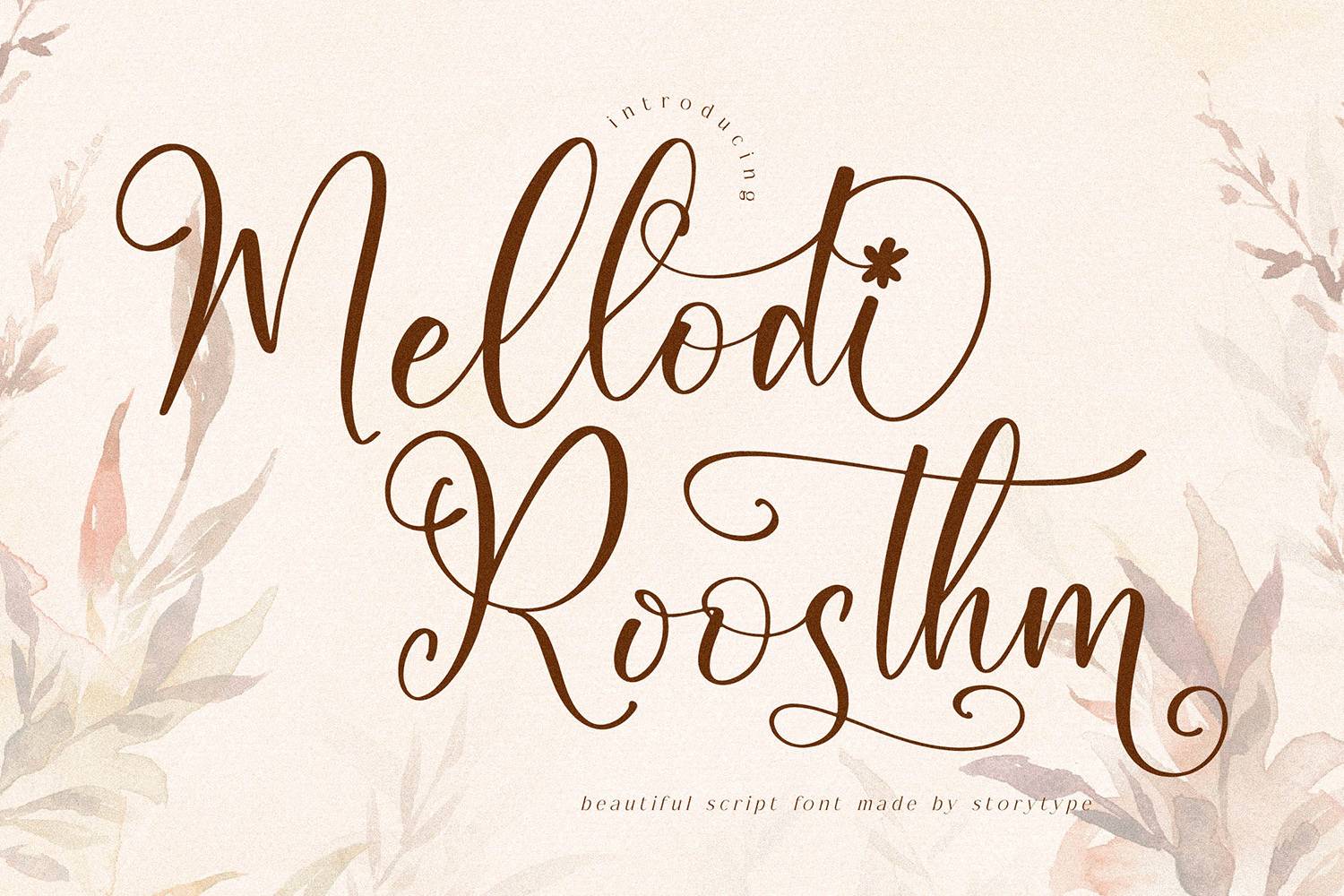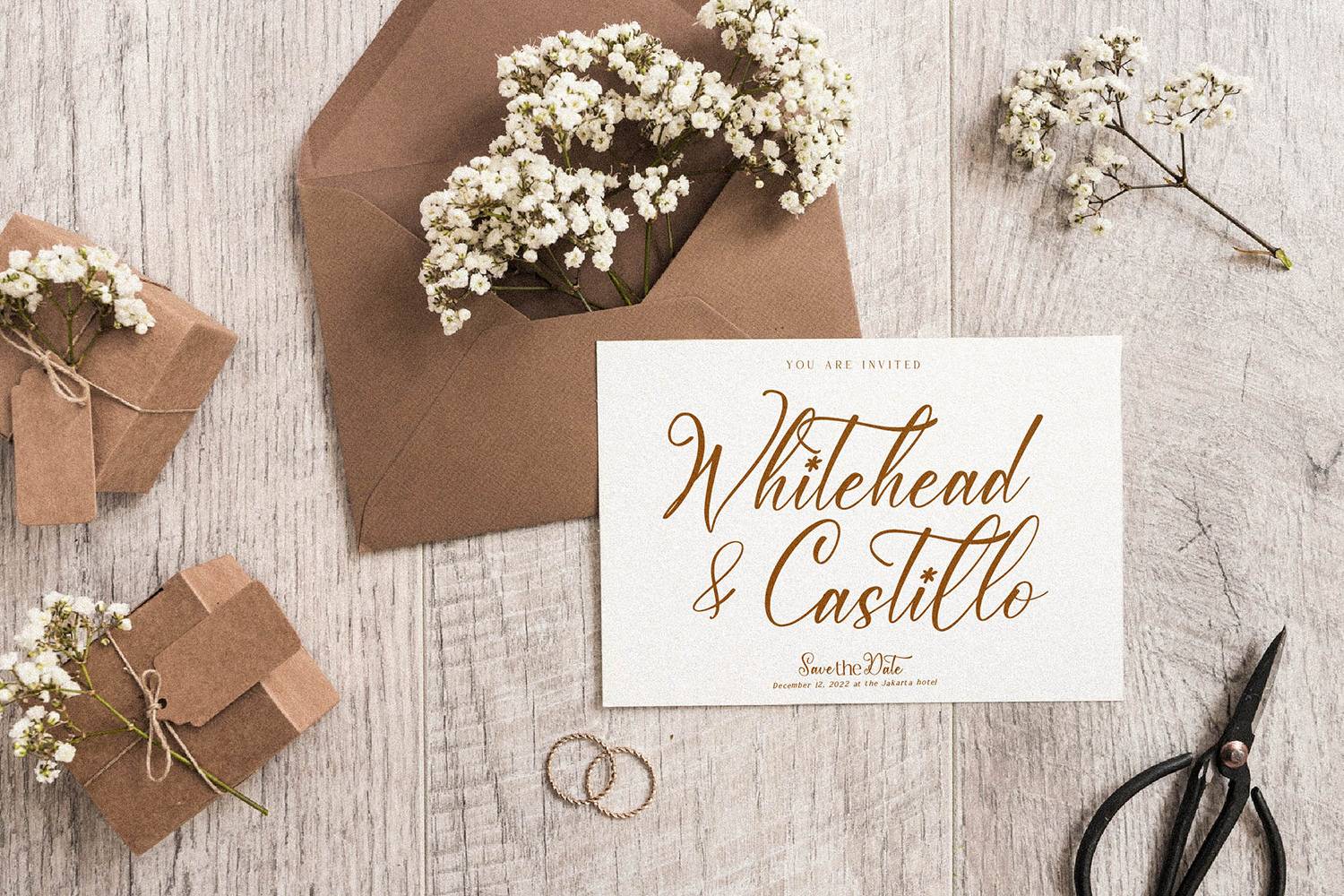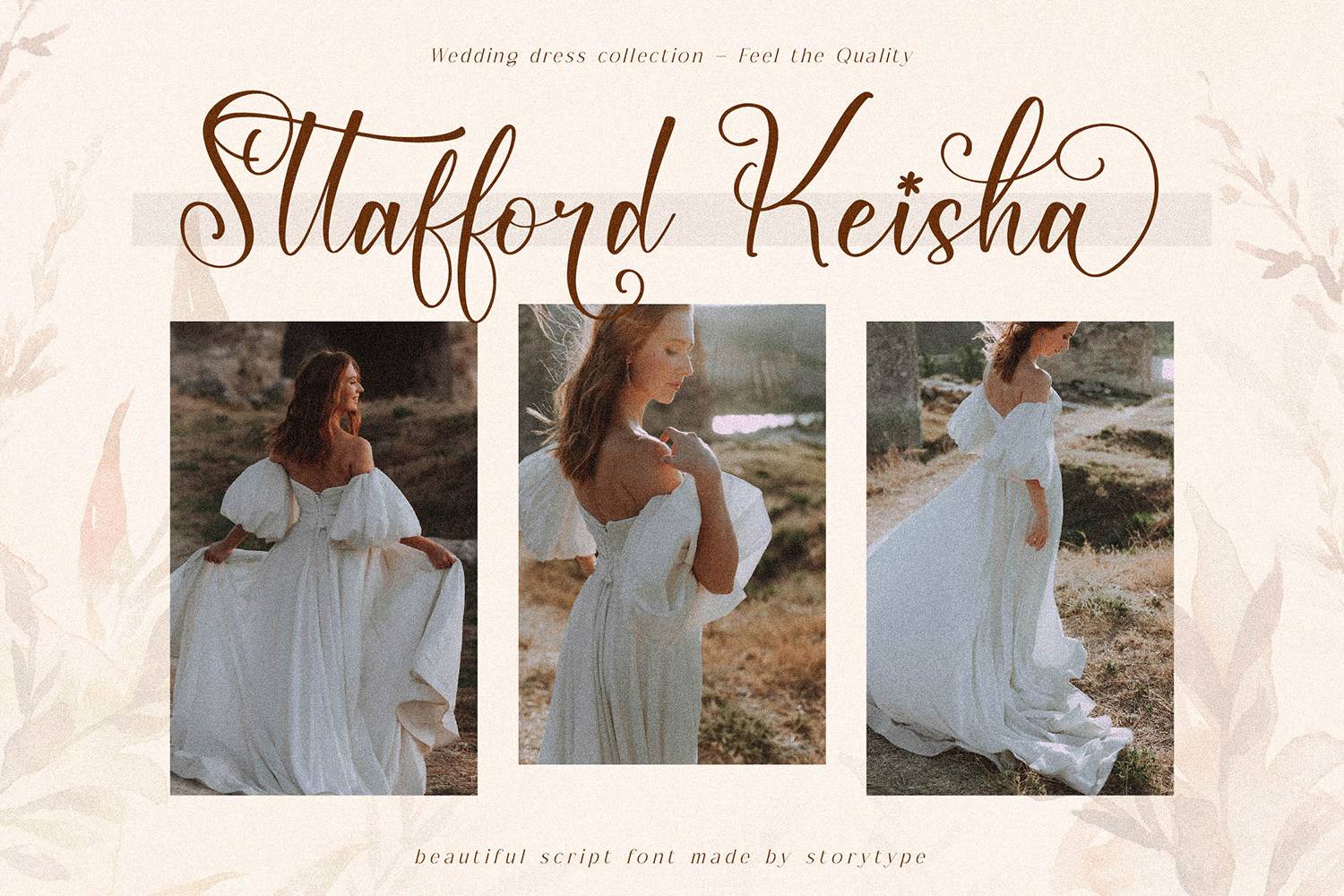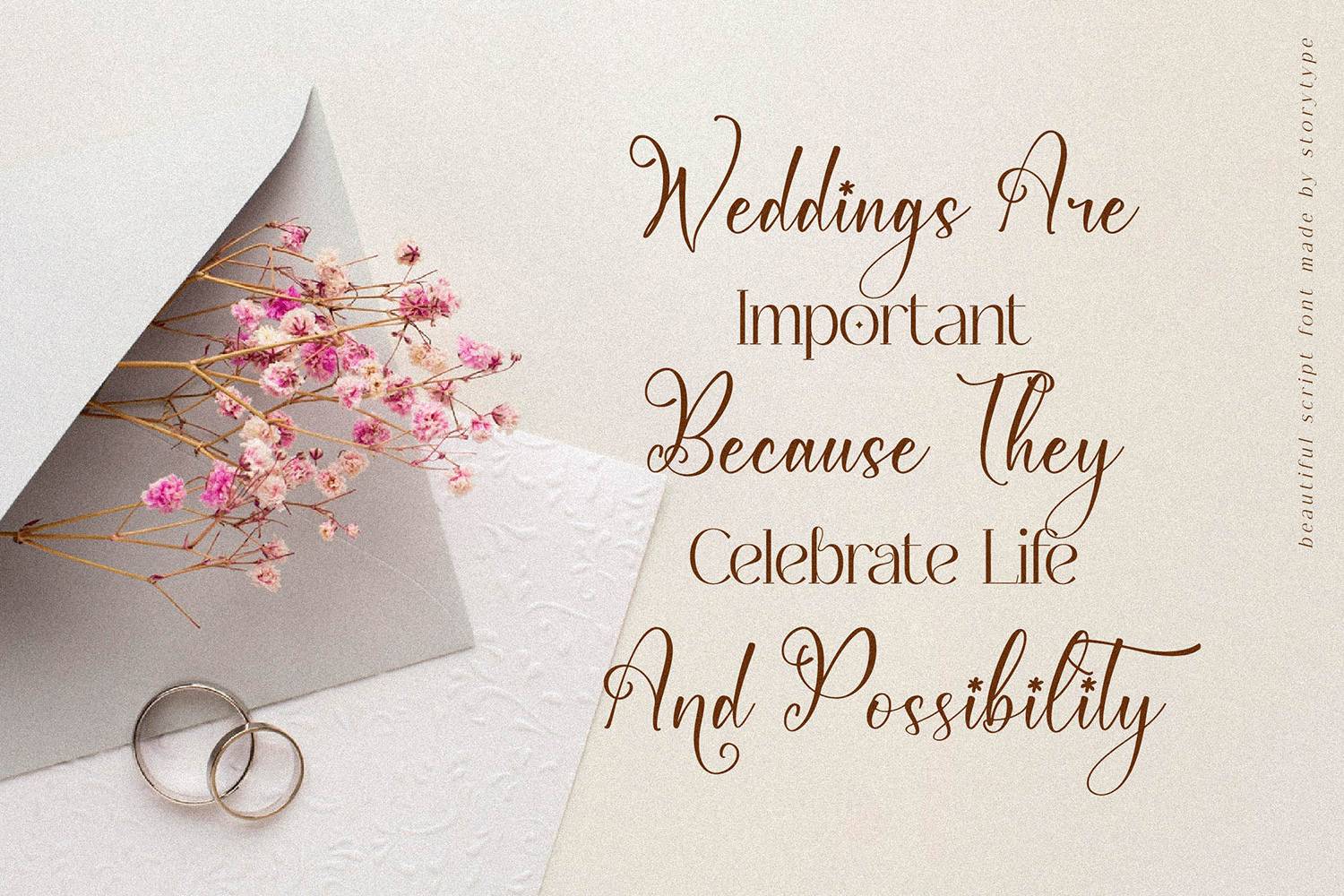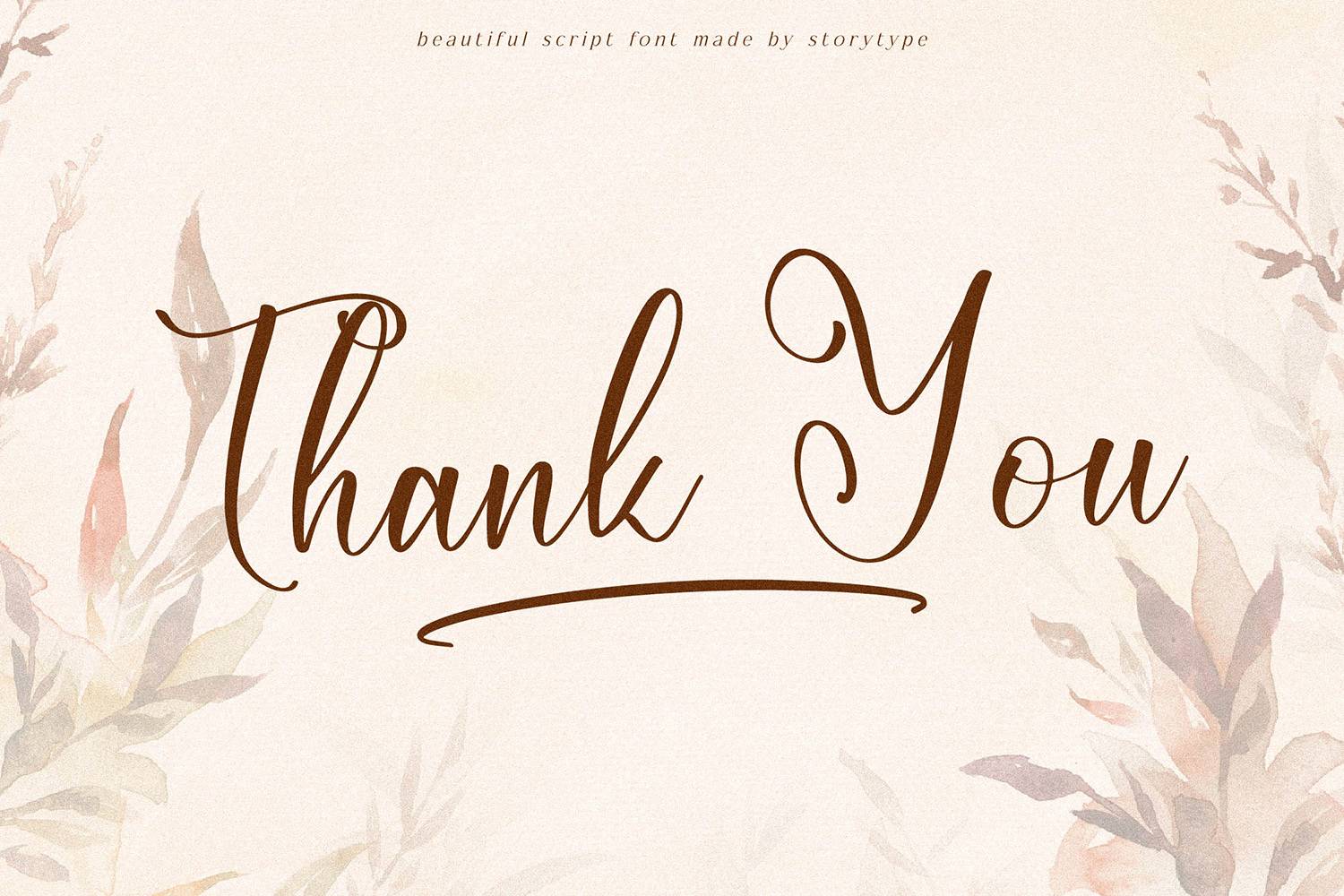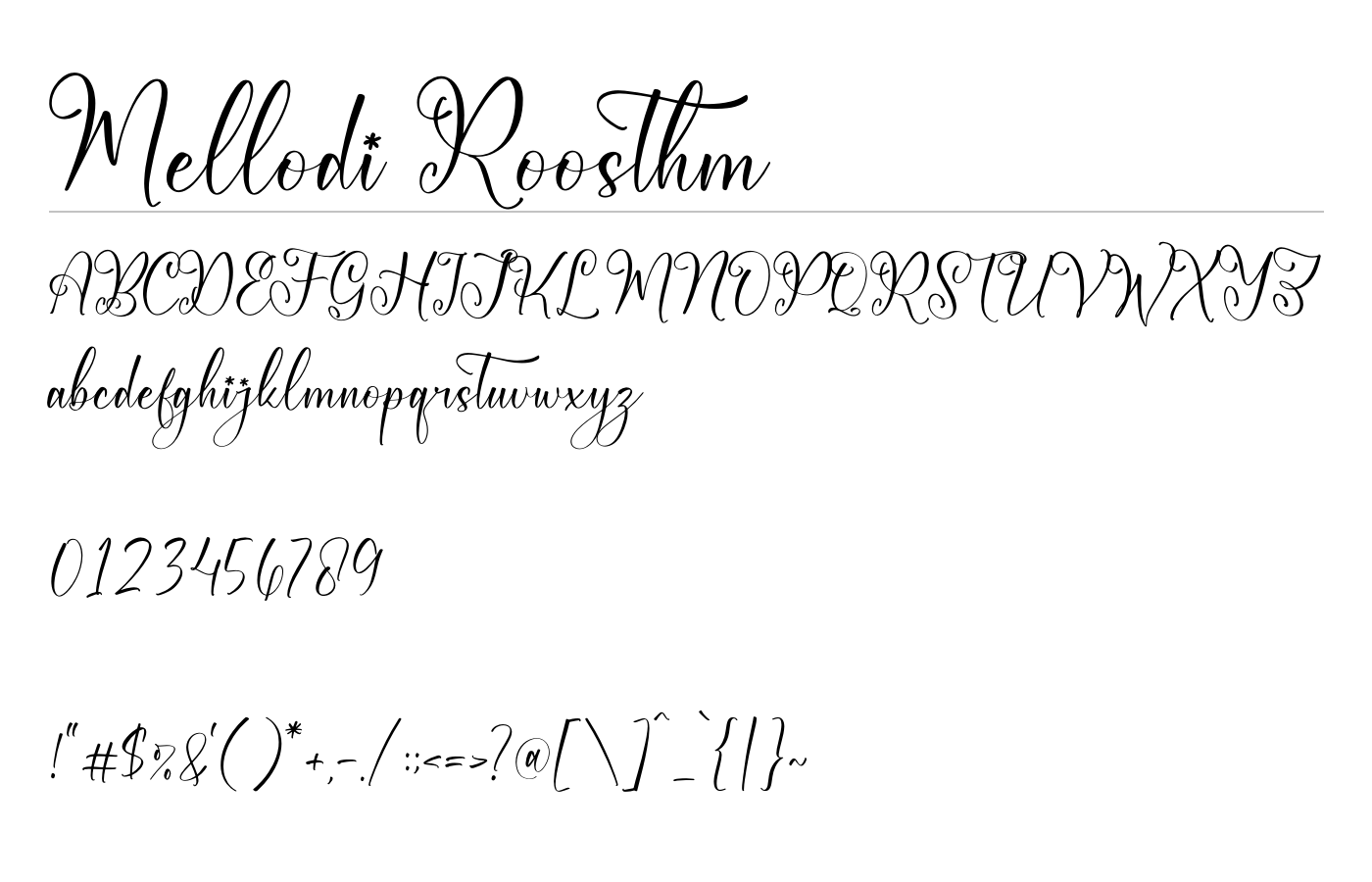
Mellodi Roosthm is an elegant script font characterized by its delicate, flowing strokes and intricate swashes, giving it a graceful and artistic flair. Its slender lines and ornate uppercase letters evoke a sense of sophistication and romance, making it ideal for wedding invitations, luxury branding, and creative design projects where a feminine and refined touch is desired. This font’s handwritten charm shines best in headlines and decorative uses, adding a stylish and personal feel to any design.
Mellodi Roosthm Font
About Mellodi Roosthm Font